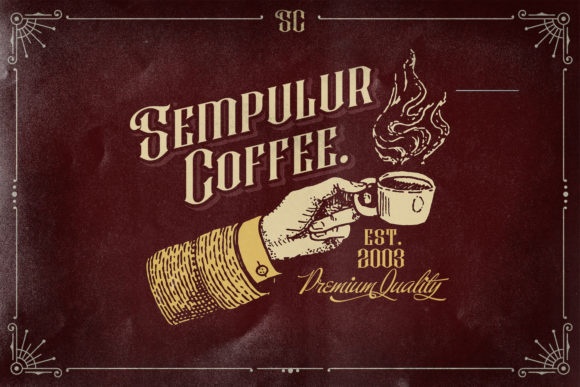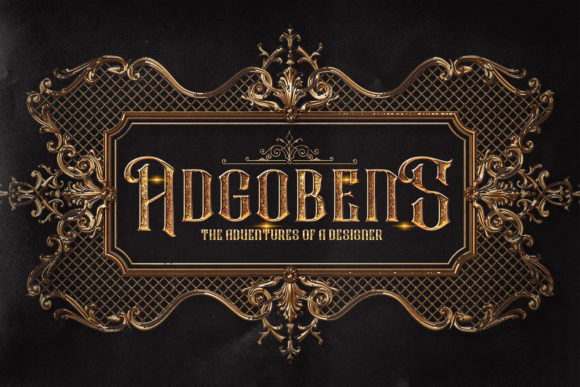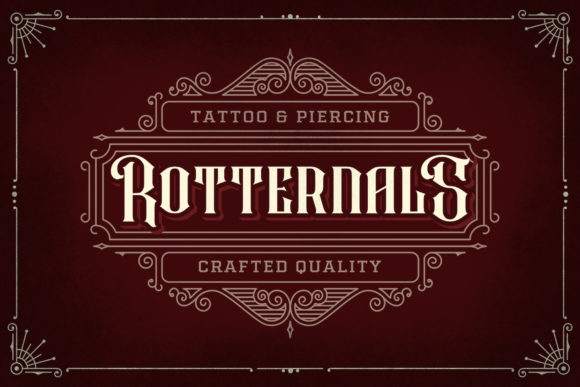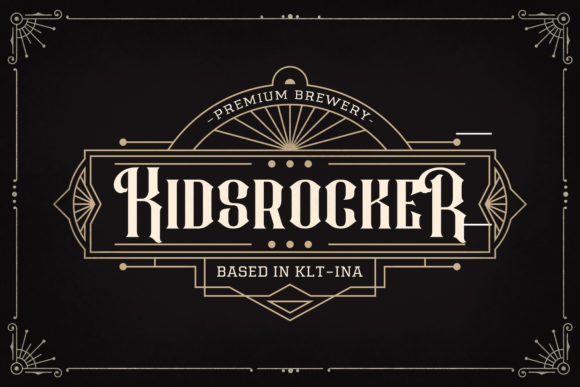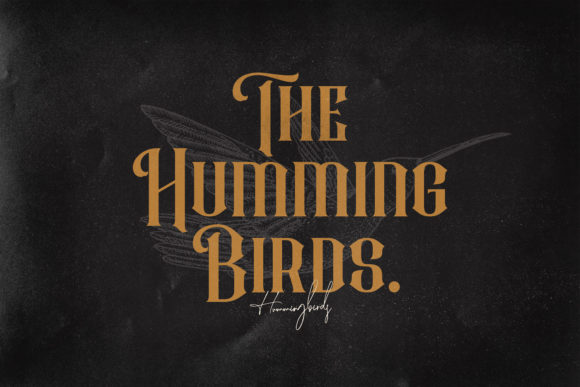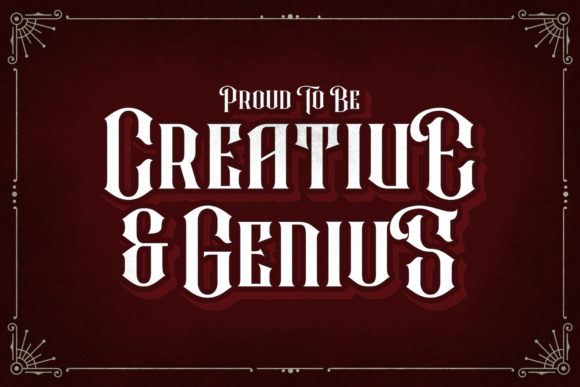
Introduction to Rafiquell Font
Have you ever stumbled upon a design element that sparks a wave of creativity, transporting you to a bygone era of elegance and charm? For many designers, this feeling is all too familiar, and it’s what makes discovering a high-quality design resource like the Rafiquell Font truly special.
As a typeface that embodies the essence of Victorian style, Rafiquell Font feels playfully nostalgic, delivering an incredible vintage aesthetic that’s sure to captivate your audience. With its roots in vintage tattoo design, this stunning and eye-catching typeface is an absolute gem for designers looking to add a touch of romance and boldness to their creative projects.
Key Features of Rafiquell Font
- Rafiquell Font is a high-quality design resource perfect for creative projects that require a unique touch.
- This font is ideal for designers who want to add a touch of elegance and sophistication to their creative project.
Honest Review: Rafiquell Font
As a designer, I’m always on the lookout for high-quality design resources to elevate my creative projects. Recently, I had the chance to try out the Rafiquell Font, and I’m excited to share my honest review with you.
- What works well: ✨ The Rafiquell Font has a unique, elegant design that’s perfect for various creative projects, from branding to typography. Its versatility makes it a great addition to any design arsenal.
- What works well: ✨ The font also features a transparent background, which allows for seamless integration with any background image or color. This level of customization is a game-changer for designers.
However, there are some limitations to consider: ⚠️ The font is available for free download, which might lead to a higher likelihood of it being used in low-quality or unprofessional projects. Additionally, the font’s design might not be suitable for all types of projects, particularly those requiring bold or sans-serif fonts.
Overall, I’m impressed with the Rafiquell Font’s design and versatility. While it may not be perfect for every project, it’s a great resource to have in your toolkit. If you’re looking for a high-quality font for your creative project, I’d definitely recommend giving it a try.
The Rafiquell Font is a high-quality design resource ideal for creative projects. Its unique and elegant style makes it a versatile choice for various applications.
Tips for Getting the Most Out of Rafiquell Font
To get the most out of the Rafiquell Font, use it in conjunction with other design elements to create a cohesive and visually appealing design. Experiment with different font sizes, colors, and combinations to achieve the desired effect.
The Rafiquell Font is suitable for various use cases, including:
Business cards and letterheads
Wedding invitations and event materials
Branding and logo designs
Any creative project requiring a high-quality, elegant font.